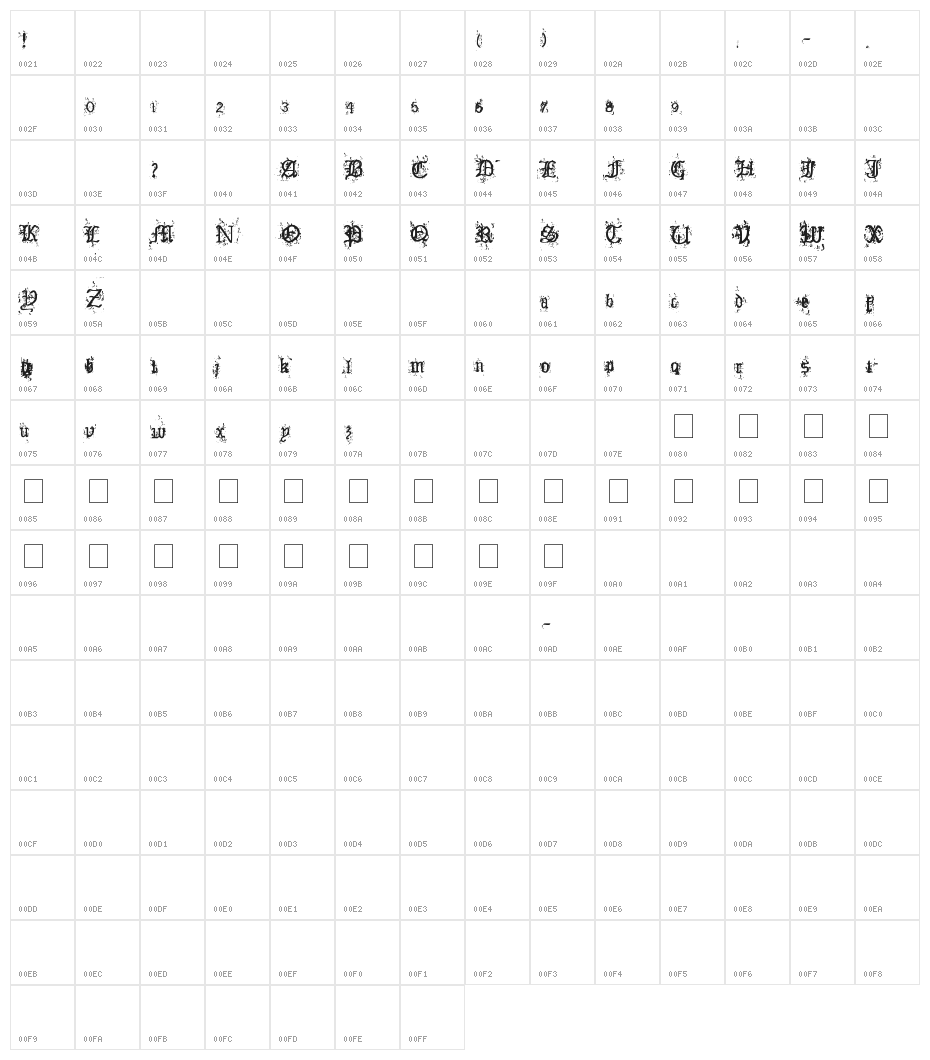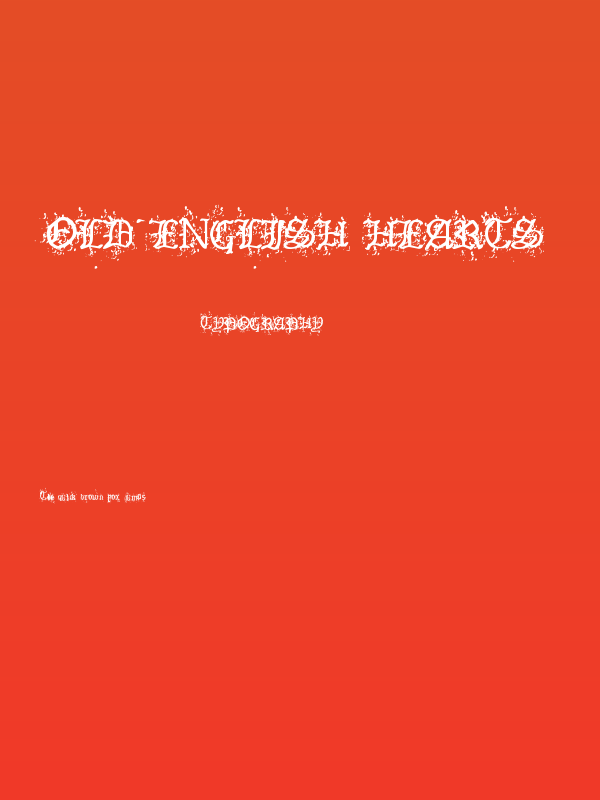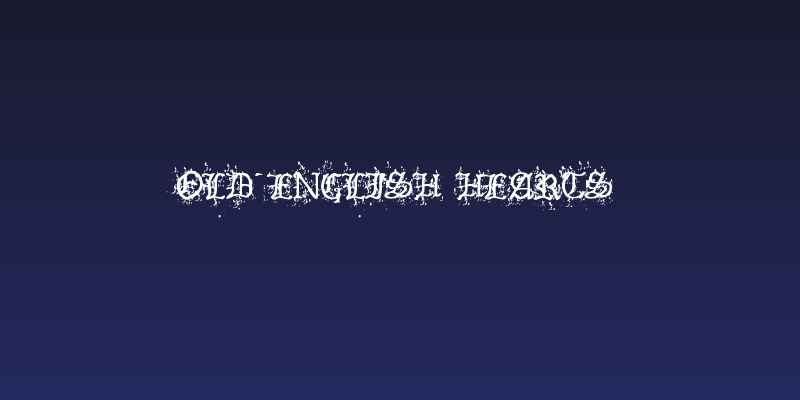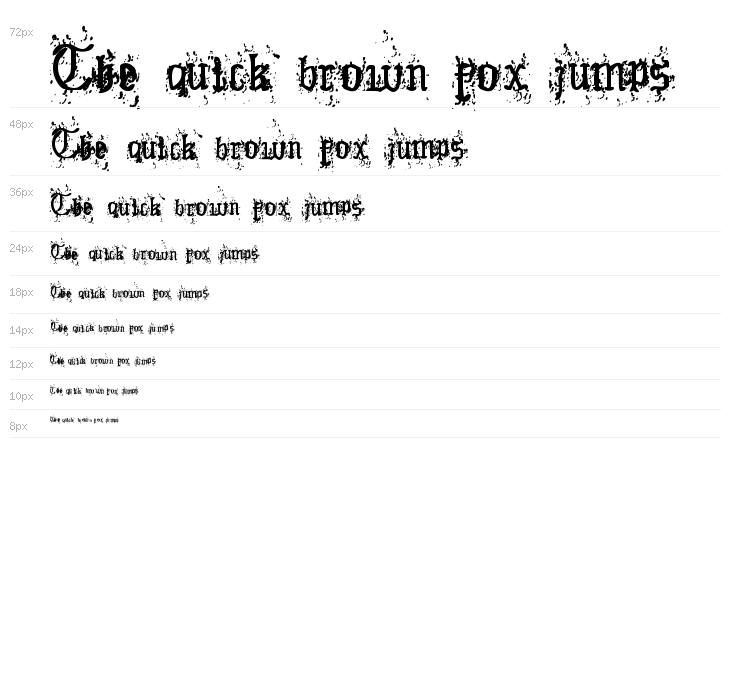
Old English Hearts Font
This font features a distinct Old English style with intricate, decorative elements that give it a unique, vintage appearance. The characters are adorned with heart-like embellishments, adding a romantic and ornate touch. The uppercase letters are bold and commanding, while the lowercase letters maintain the same decorative flair. Numbers and special characters are consistent with the overall theme, making this font suitable for projects that require a historical or gothic aesthetic. The texture appears distressed, contributing to its antique look.
Overall StyleVintage
Use CaseLogos, Decorative headings, Event invitations
Proposed ProjectsIdeal for wedding invitations, historical themed events, gothic designs, and decorative posters.